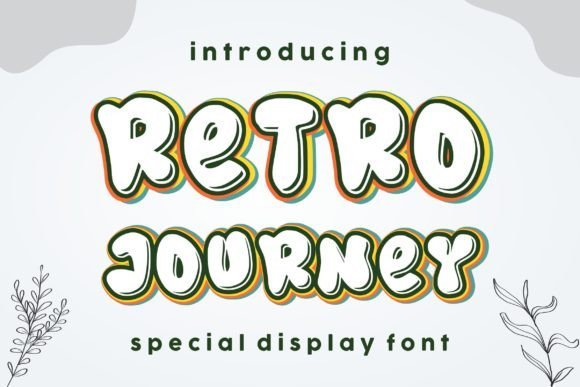
Introduction to Retro Journey Font
RETRO JOURNEY is a sweet, cute, and unique font.
The perfect font for designing t-shirts, tote bags, hats, stickers, wedding invitations, logos, cards, quotes, and more Super Groovy will make any creative idea stand out and amaze you.
Retro Journey Font offers exceptional quality and versatility, making it a valuable addition to your design toolkit. Whether you’re creating for personal projects or commercial use, Retro Journey Font delivers professional results.